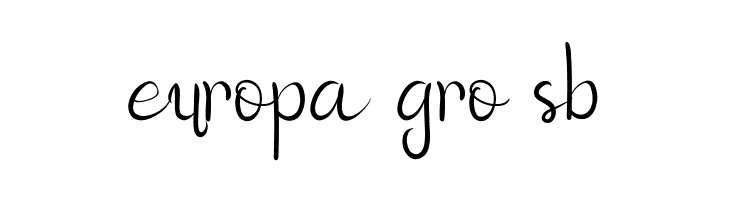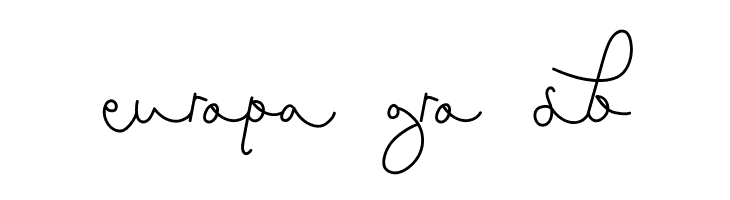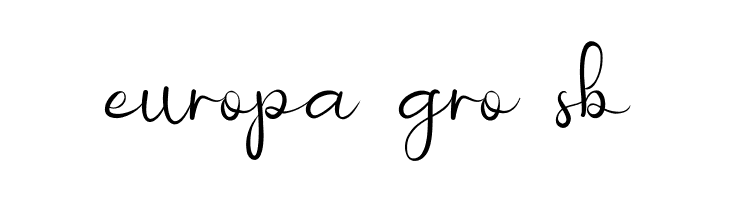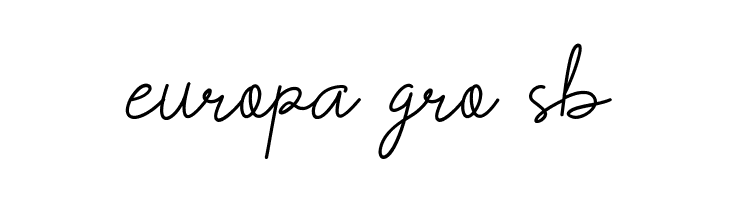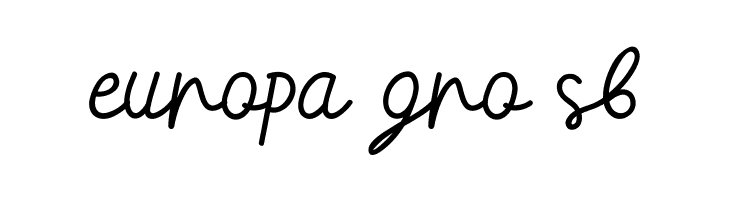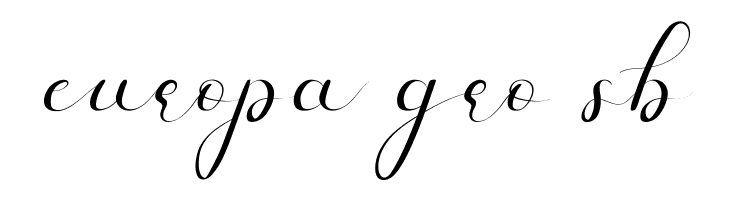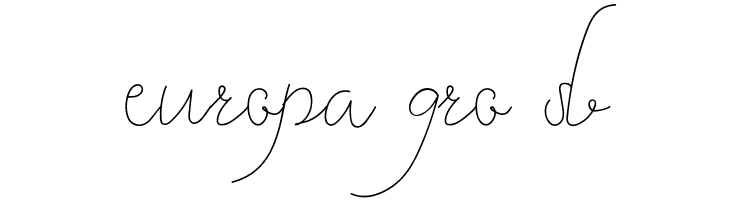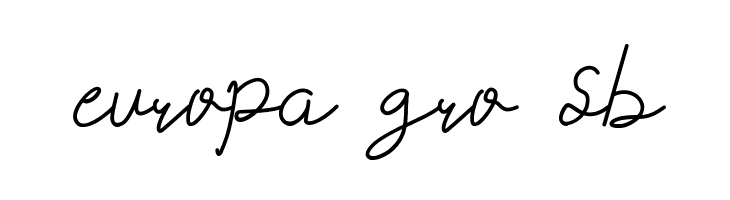
A playful, handwritten script font with medium contrast and dynamic flow.
A playful, flowing script font with elegant curves and medium contrast.
A playful, handwritten font with fluid, connected letterforms and a casual style.
A graceful script font with flowing, connected strokes and elegant curves.
An elegant, flowing script font with a handwritten style.
A flowing, cursive font with elegant, interconnected characters.
An elegant script font with flowing, interconnected letters and a graceful, handwritten style.
An elegant script font with intricate loops and high contrast, perfect for sophisticated designs.
A modern, cursive handwritten font with elegant, flowing lines.
A whimsical, elegant handwritten font with playful curves and loops.